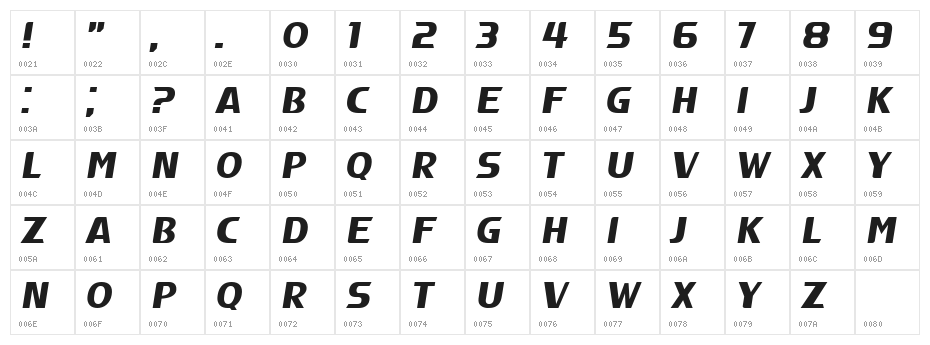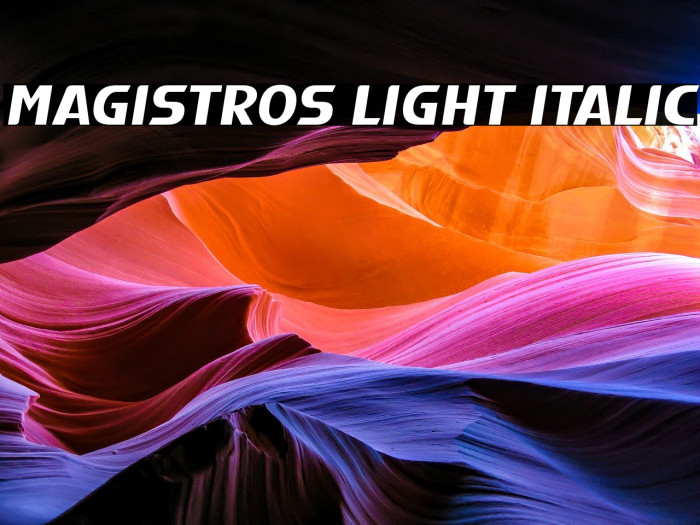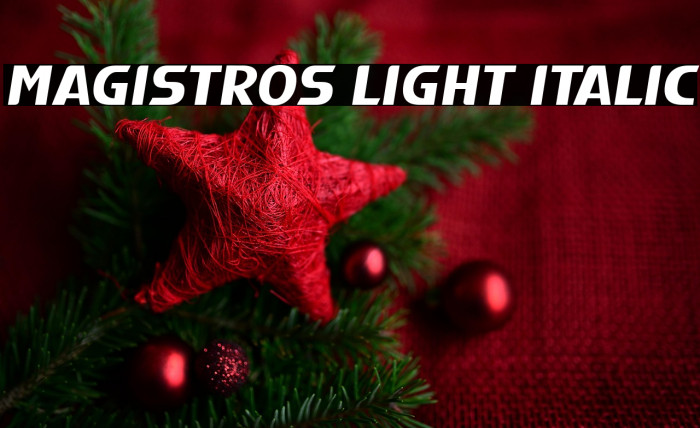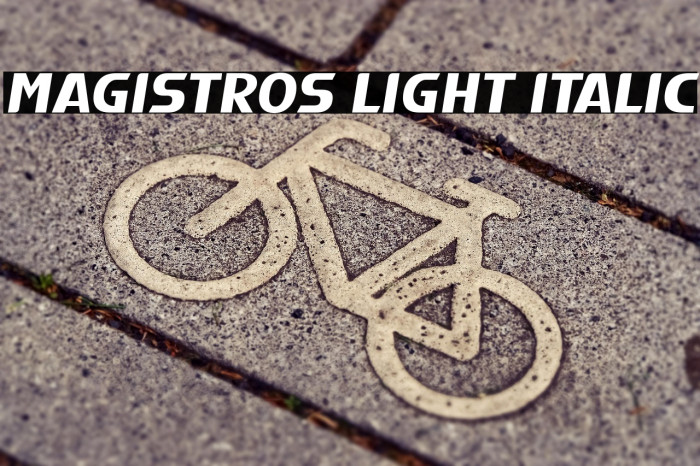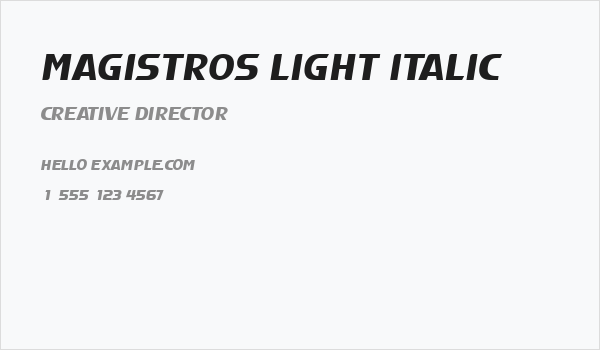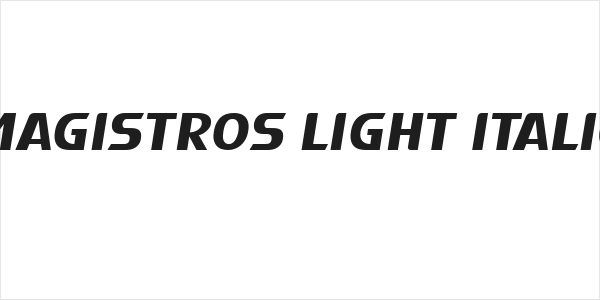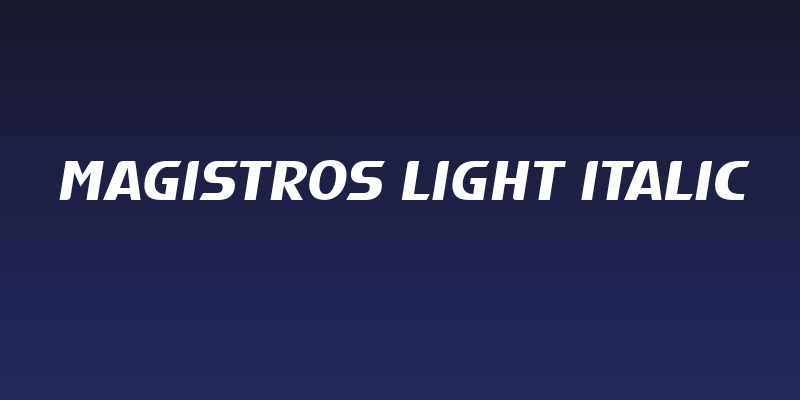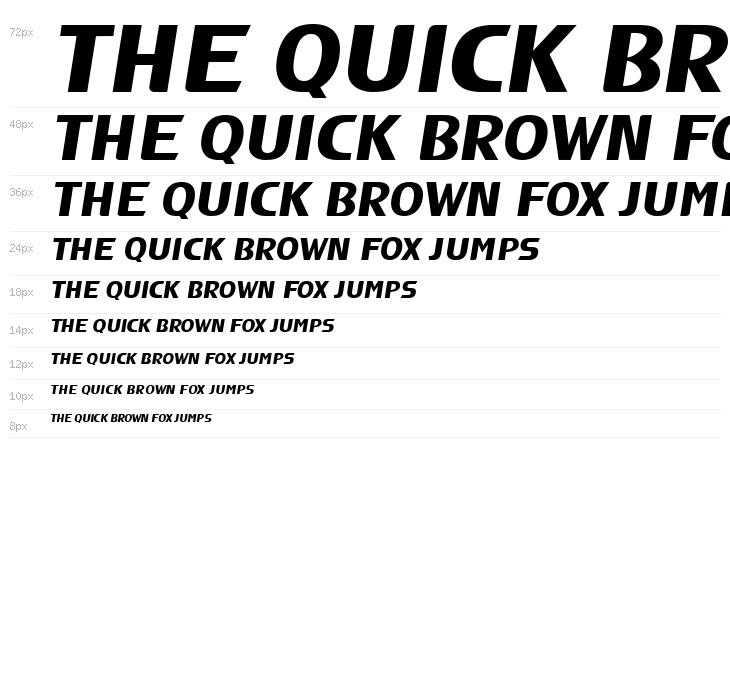
Magistros Light Italic Font
Magistros Light Italic Description
This font features a sleek, modern design with a slight italic slant, giving it a dynamic and forward-moving appearance. The characters are well-proportioned with a consistent stroke width, contributing to a clean and professional look. The uppercase and lowercase letters maintain a harmonious balance, while the numerals are clear and easy to read. Special characters are distinct and integrate seamlessly with the overall style. The font's design is versatile, making it suitable for a variety of applications where a contemporary and polished aesthetic is desired.